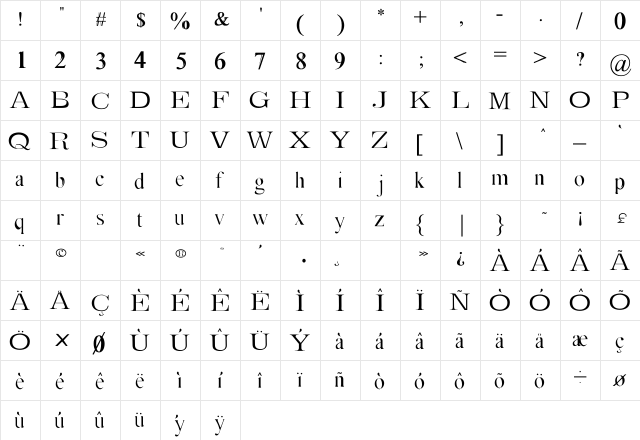
Absortile Medium
| Designer | Malre |
Design Context for Absortile Typeface
Absortile offers clean, dependable letterforms without strong stylistic allegiance, making it a practical choice for designers who need flexibility.